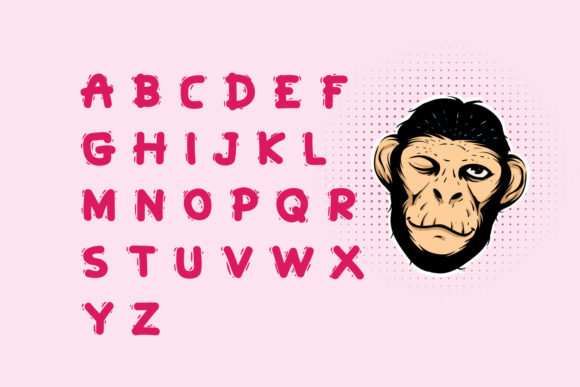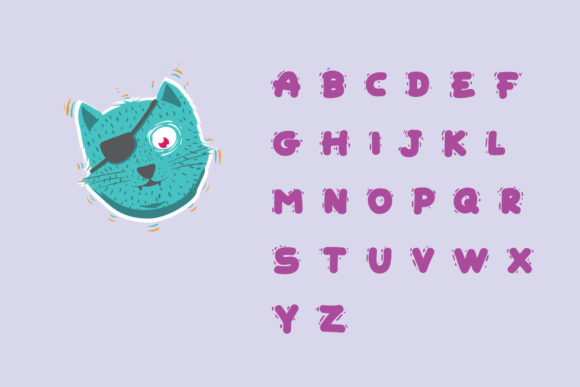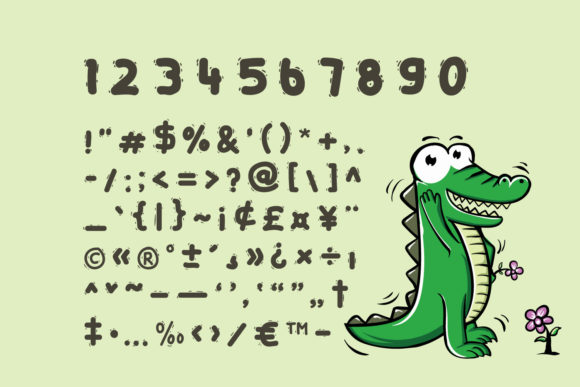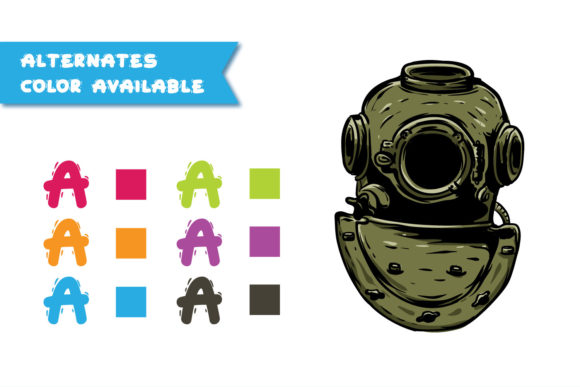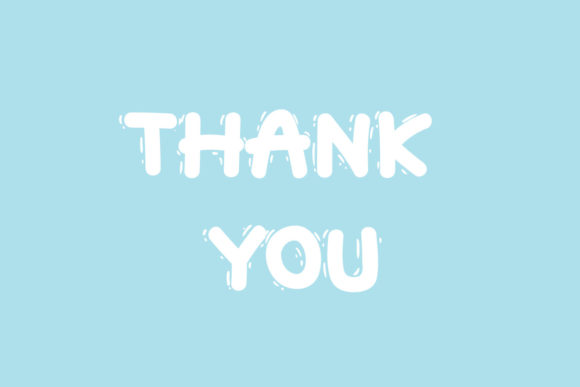
Introducing Andria Font: The Fun and Friendly Display Font for Children-Themed Designs
Are you a designer or crafter looking for a font that can add a touch of fun and friendliness to your children-themed designs? Look no further than Andria Font! This delightful display font is perfect for creating engaging and visually appealing designs that kids will love. In this article, we’ll take a closer look at Andria Font, its features, and how you can use it to take your designs to the next level.
What is Andria Font?
Andria Font is a modern display font that is designed to be fun, friendly, and attention-grabbing. Its thick lettering and playful vibe make it perfect for use in children-themed designs, such as posters, flyers, brochures, and more. Whether you’re designing for a kids’ party, a children’s book, or a fun craft project, Andria Font is sure to bring a smile to kids’ faces.
PUA Encoding for Easy Access to Glyphs and Ligatures
One of the standout features of Andria Font is its PUA (Private Use Area) encoding. This means that you can access all of the amazing glyphs and ligatures with ease, without having to worry about complicated font editing software. With PUA encoding, you can simply select the glyphs and ligatures you want to use from your design software’s glyph panel, making it easy to add a touch of personality to your designs.
Perfect for Children-Themed Designs
Andria Font is specifically designed with children-themed designs in mind. Its playful and friendly vibe makes it perfect for use in designs that require a fun and youthful feel. When combined with bright colors, Andria Font can help create designs that are both visually appealing and engaging for kids. Whether you’re designing for a kids’ party, a children’s book, or a fun craft project, Andria Font is the perfect choice.
Features of Andria Font
• Fun and friendly design: Andria Font is designed to be playful and attention-grabbing, making it perfect for children-themed designs.
• Thick lettering: The font’s thick lettering makes it easy to read and adds a touch of boldness to your designs.
• PUA encoded: With PUA encoding, you can access all of the amazing glyphs and ligatures with ease.
• Perfect for kids’ designs: Andria Font is specifically designed with children-themed designs in mind, making it perfect for use in kids’ parties, children’s books, and more.
How to Use Andria Font in Your Designs
Tips for Getting the Most Out of Andria Font
• Combine with bright colors: Andria Font looks amazing when combined with bright colors. Try pairing it with bold and bright colors to create designs that pop.
• Use in kids’ designs: Andria Font is specifically designed with children-themed designs in mind. Try using it in kids’ parties, children’s books, and more.
• Experiment with glyphs and ligatures: With PUA encoding, you can access all of the amazing glyphs and ligatures. Try experimenting with different glyphs and ligatures to add a touch of personality to your designs.
Andria Font is a fun, friendly, and thick lettered display font that is perfect for children-themed designs. With its PUA encoding and playful vibe, it’s easy to add a touch of personality to your designs. Whether you’re a designer or crafter, Andria Font is a great choice for creating engaging and visually appealing designs that kids will love.